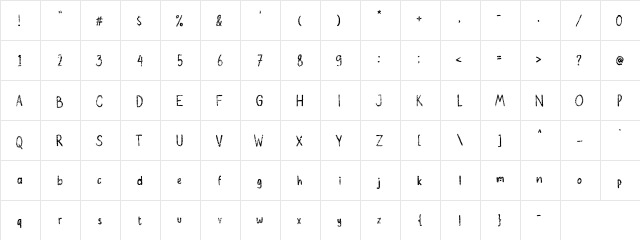
Orion Chalk Scratch Demo Versio Regular
Design Context for Orion Chalk Scratch Demo Versio Typeface
Orion Chalk Scratch Demo Versio is a composed and adaptable typeface that performs quietly and consistently across a wide range of design contexts.